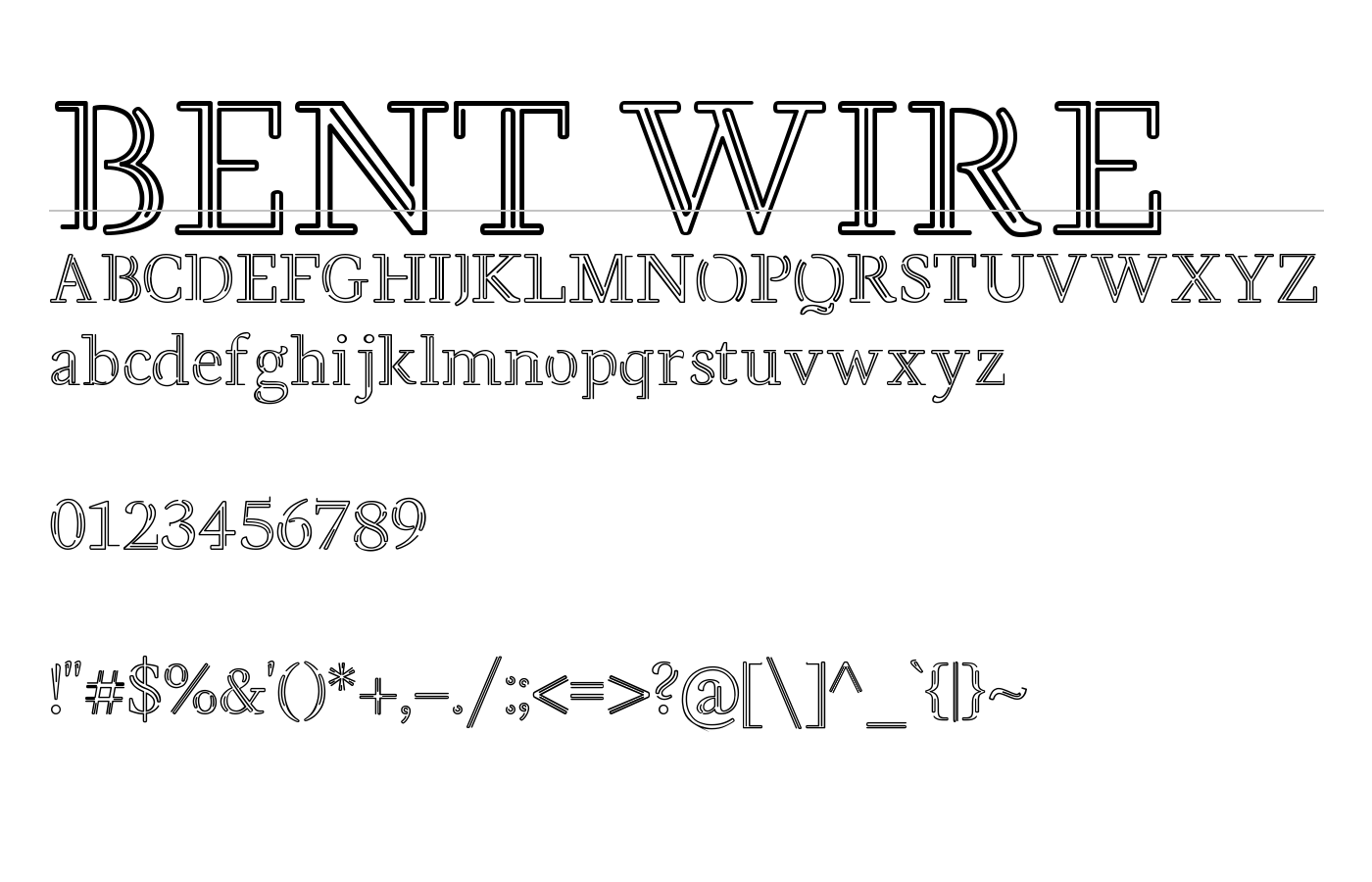
Bent Wire is a decorative serif font featuring a unique, outlined design that mimics the look of twisted wire with elegant, thin strokes and subtle curves. Its tall, slightly condensed letterforms combine classic serif details with a playful, hand-crafted feel, making it ideal for eye-catching headlines, logos, and creative branding that seeks a vintage yet modern aesthetic. This font works well in artistic and industrial-themed projects where a distinct, stylish statement is needed.
BENT WIRE Font
About BENT WIRE Font